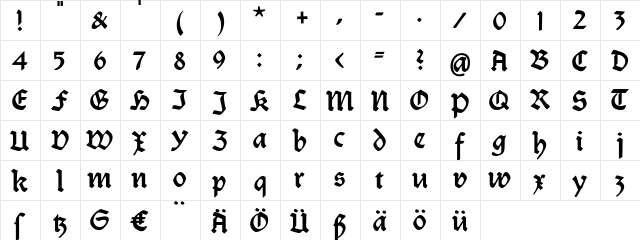
Burte-Fraktur Regular
Design Context for Burte-Fraktur Typeface
Burte-Fraktur draws on the rich tradition of blackletter calligraphy, with dense, angular strokes that evoke medieval manuscripts and old-world craftsmanship.
Well-suited to band logos, craft beer branding, tattoo lettering, and heritage-themed identities.
Font Pairing: Pair with a clean neutral sans-serif for body copy to let Burte-Fraktur's character lead without overwhelming the composition.
Pro Tip: Use Burte-Fraktur sparingly at large sizes. Even a single word set in blackletter can define the visual register of an entire design.